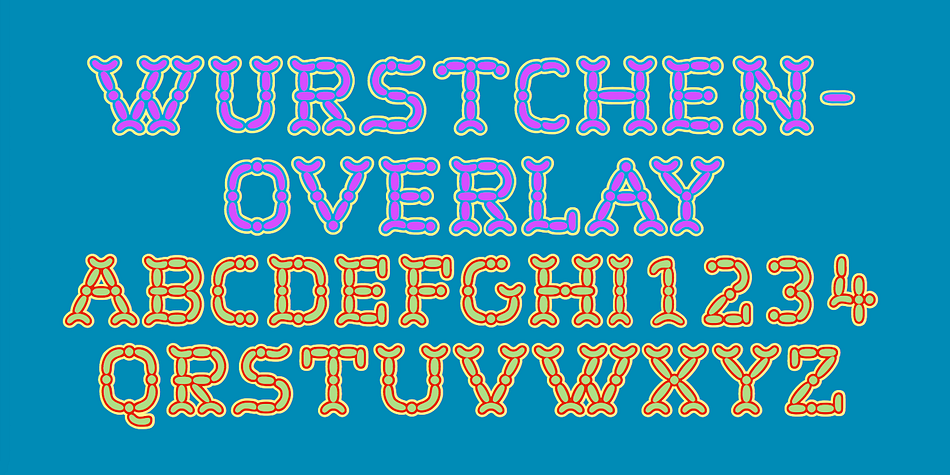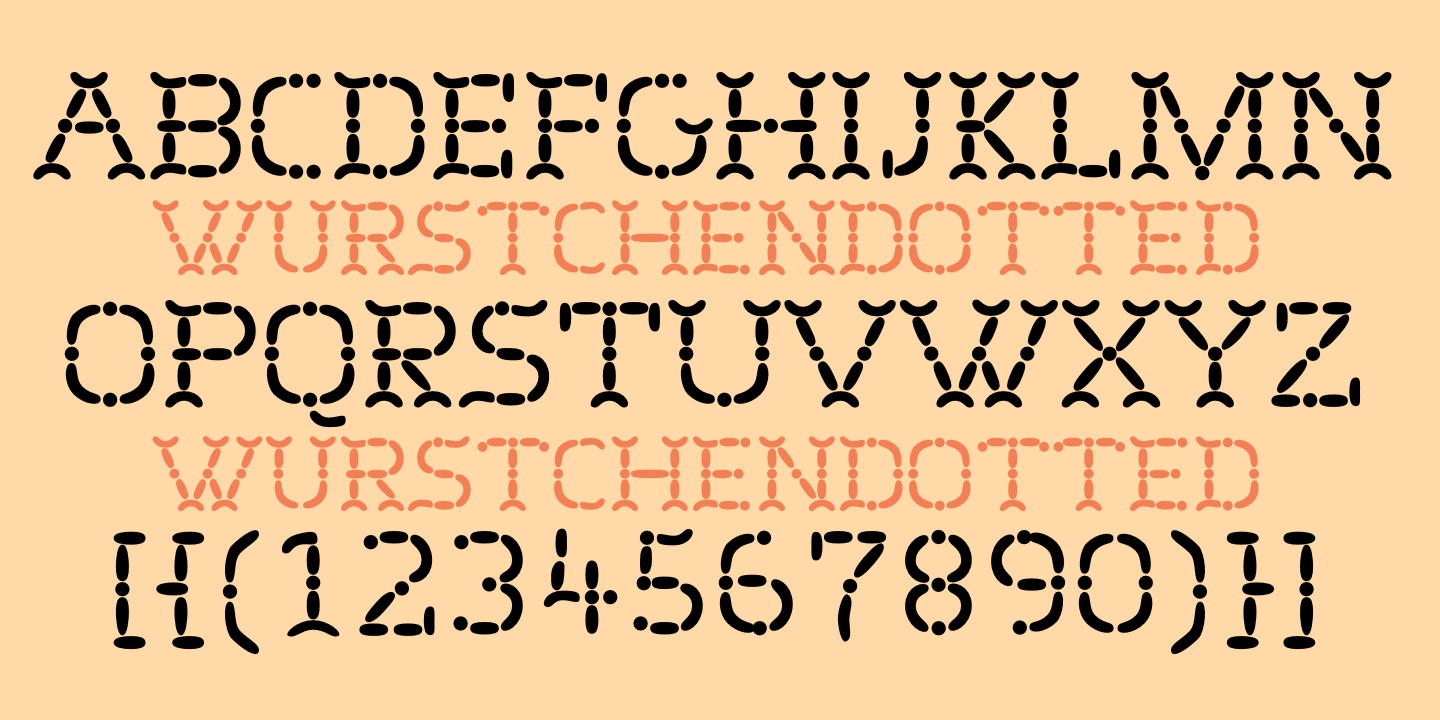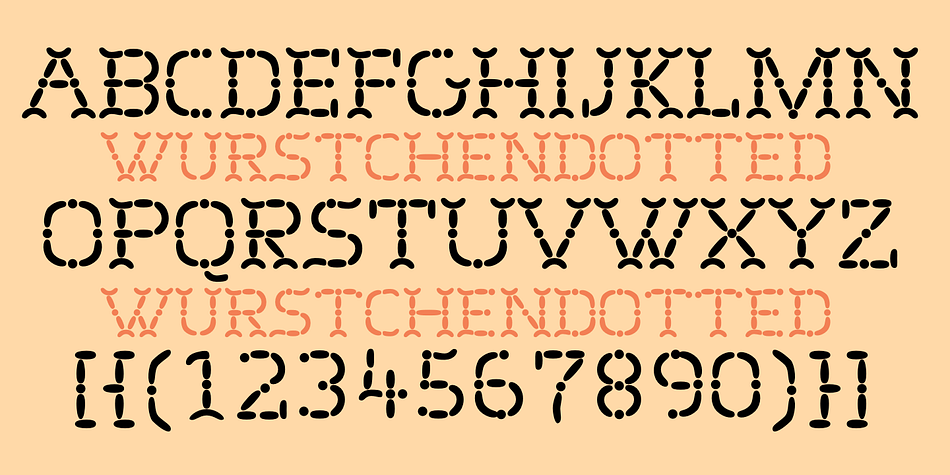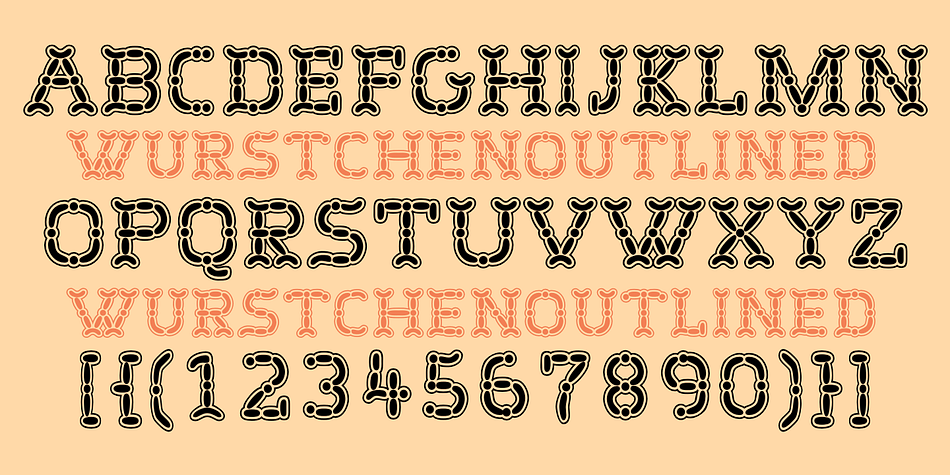
Designed by Robert Schenk, Wurstchen is a display and novelty font family. This typeface has five styles and was published by Ingrimayne Type.
Wurstchen Dotted is made up up of sausage segments. It does not have true lower-case letters, but rather variants of the upper-case letters instead. As all extreme display fonts, it is useful in small doses.
The three Wurstchen Overlay fonts decompose WurstchenOutlined and can be used in layers to create letters with three colors.